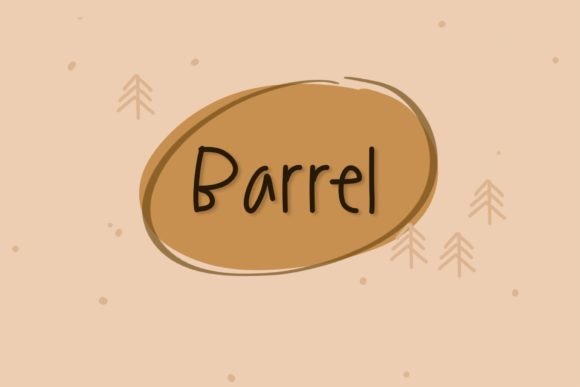
Discover the Charm of Barrel Font: A Beautiful Chalk-Written Look for Your Designs
Are you a designer or crafter looking for a unique and eye-catching font to add a personal touch to your projects? Look no further than Barrel Font, a stunning typeface that mimics the look of chalk writing. With its rustic, hand-scribbled feel, Barrel is sure to bring a touch of warmth and character to any design.
What is Barrel Font?
Barrel Font is a beautiful font that has a chalk written look, perfect for creating eye-catching headings, titles, and text. The font’s design is inspired by traditional chalkboard writing, with a distinctive texture and feel that gives it a unique, hand-crafted look. Whether you’re working on a DIY project, a branding campaign, or simply want to add a personal touch to your digital designs, Barrel Font is an excellent choice.
Key Features of Barrel Font
So, what makes Barrel Font so special? Here are just a few of its key features:
- Chalk-like texture: The font’s texture is reminiscent of traditional chalk writing, giving it a distinctive, hand-crafted feel.
- Hand-scribbled look: Barrel Font has a beautifully imperfect, hand-scribbled look that’s perfect for adding a personal touch to your designs.
- High-quality design: The font is designed with precision and attention to detail, ensuring that it looks great in any context.
- Easy to read: Despite its hand-crafted look, Barrel Font is surprisingly easy to read, making it perfect for use in body text as well as headings.
Uses for Barrel Font
So, what can you use Barrel Font for? The possibilities are endless! Here are just a few ideas to get you started:
- DIY projects: Add a personal touch to your DIY projects, such as craft tutorials, woodworking plans, or recipe cards.
- Branding and marketing: Use Barrel Font to create eye-catching logos, business cards, or social media graphics that stand out from the crowd.
- Digital designs: Add a touch of personality to your digital designs, such as blog posts, presentations, or email newsletters.
- Crafting and scrapbooking: Use Barrel Font to create beautiful titles and headings for your scrapbooking and crafting projects.
Tips for Using Barrel Font
Here are a few tips for getting the most out of Barrel Font:
- Use it sparingly: Barrel Font is a bold, attention-grabbing font that’s best used sparingly. Try using it for headings and titles, and pairing it with a simpler font for body text.
- Experiment with colors: The chalk-like texture of Barrel Font looks great in a range of colors, from bright and bold to soft and pastel. Experiment with different colors to find the perfect look for your design.
- Add texture and effects: Consider adding texture or effects to your design to enhance the chalk-like feel of Barrel Font. This could include adding a subtle background texture or using a distressed effect.
Barrel Font is a beautiful, chalk-written font that’s perfect for designers and crafters looking to add a personal touch to their projects. With its rustic, hand-scribbled feel and high-quality design, Barrel Font is sure to bring a touch of warmth and character to any design. Whether you’re working on a DIY project, a branding campaign, or simply want to add a personal touch to your digital designs, Barrel Font is an excellent choice. So why not give it a try and see the difference it can make?